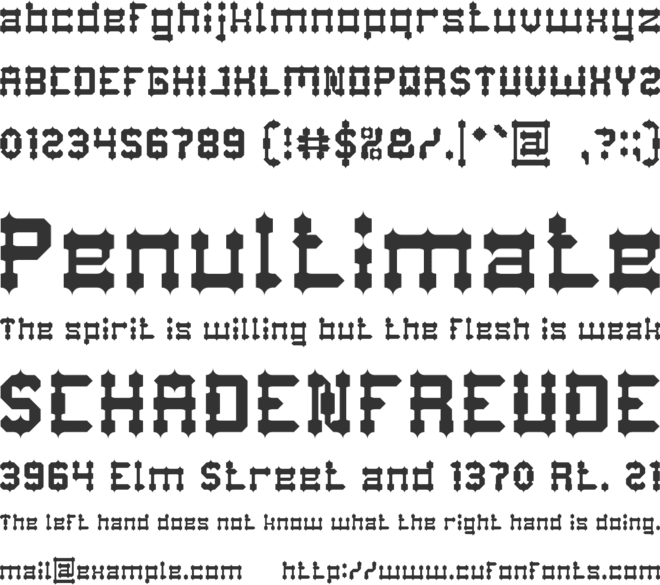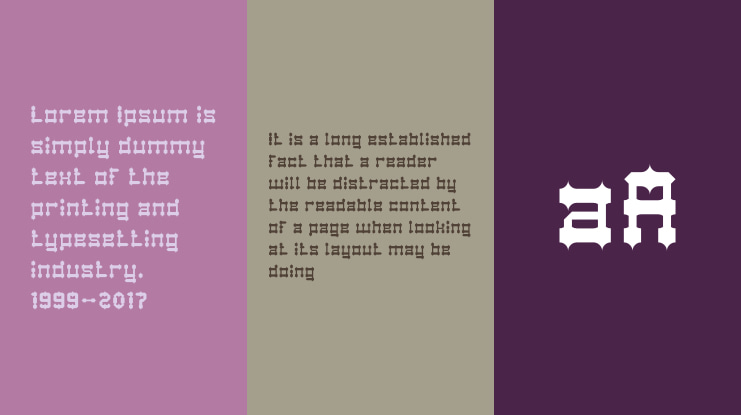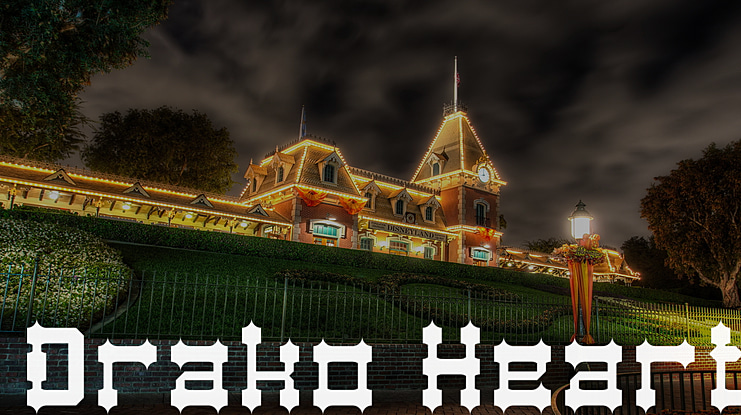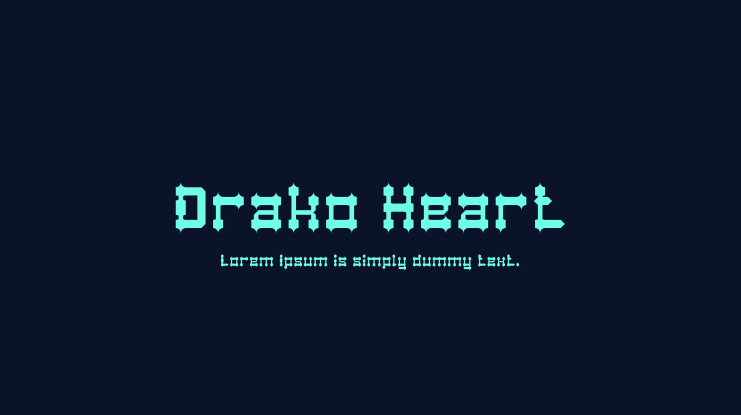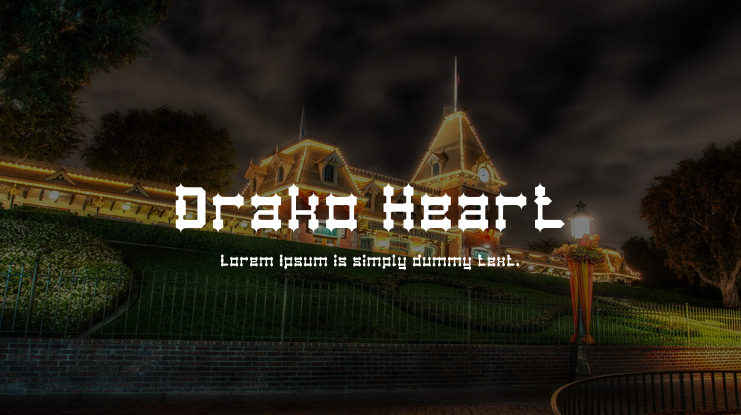
Drako Heart Font Family
update with lowercase, symbol, number, punctuation, plus italic, inverse style
i dedicated this font for my best friend drako, most of his drawing are dragon in many character, his drawing very unique, because drako always develop his dragon style
well drako, here just a little gift from me, i hope you like it, only capital case and number